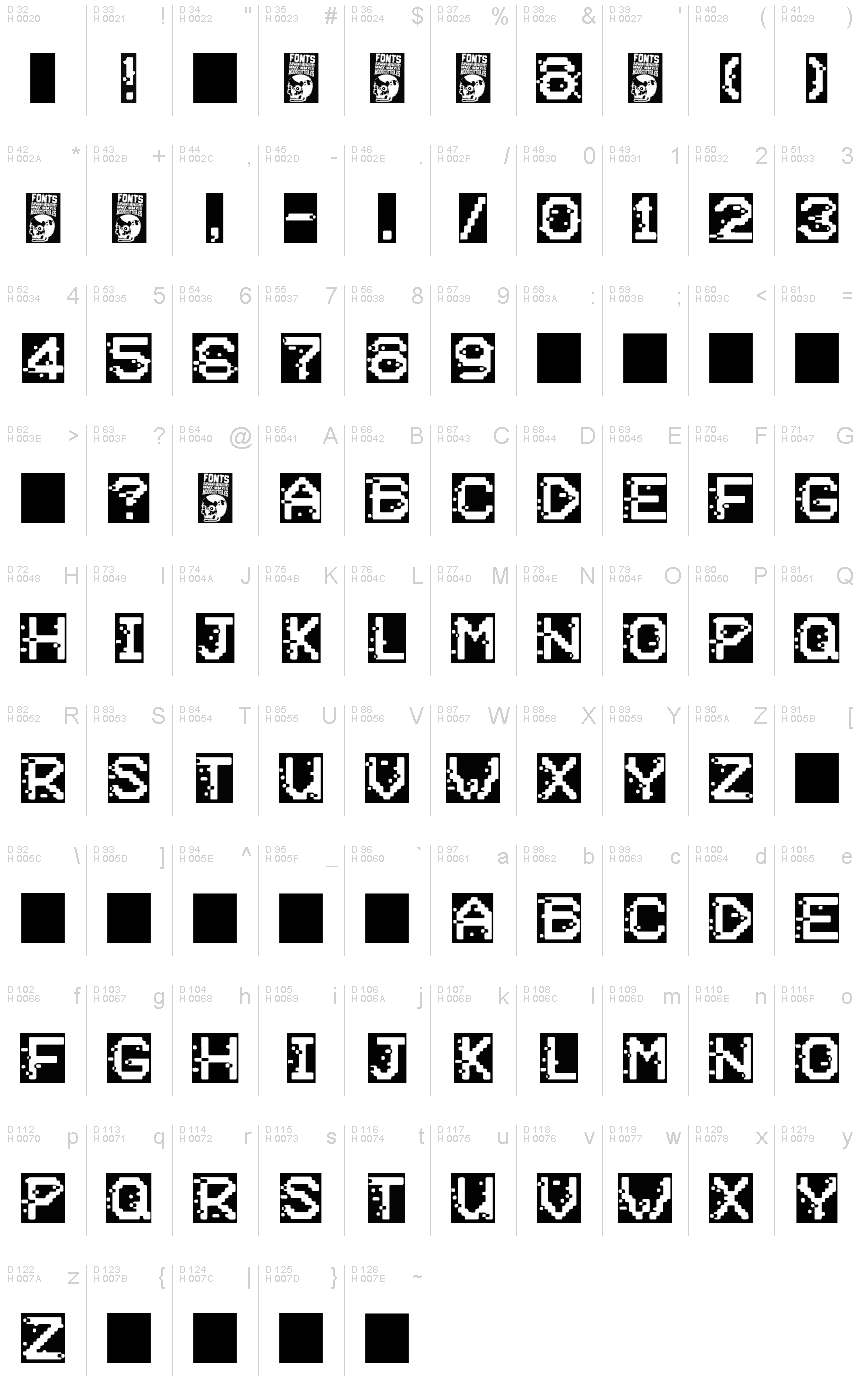
Negative System
Negative System is a striking digital typeface designed by Woodcutter Manero. This font's unique negative aesthetic, with its bold, high-contrast lines and pixelated appearance, lends it an impressive, futuristic flair.
The distinct typeface exudes a cyberpunk sensibility, making it an excellent choice for eye-catching headings, digital interfaces, and sci-fi-inspired designs. Negative System's sharp, geometric letterforms command attention, lending themselves seamlessly to a range of applications, from editorial layouts to product branding.
Its bold, experimental style makes it a versatile tool for designers seeking to create impactful, high-tech visual narratives.